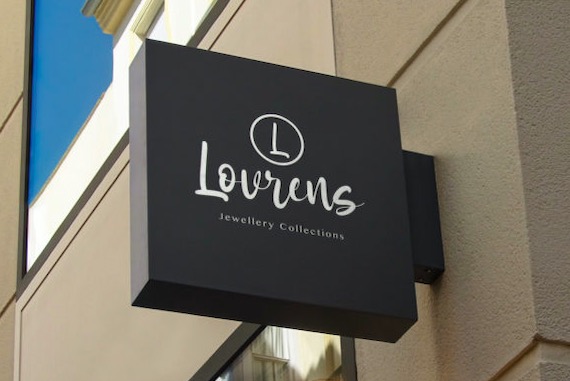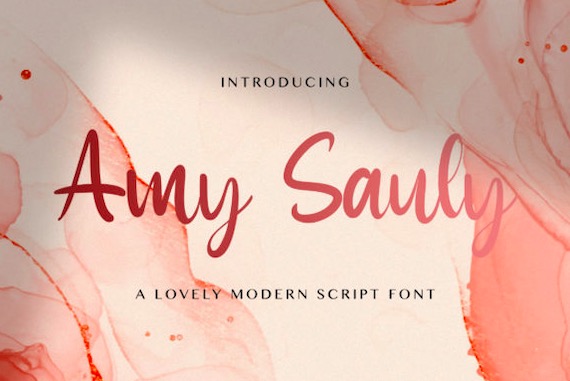
Amy Sauly Font
Amy Sauly is a flowing, classy, and delicate handwritten script font that was created and shared by StringLabs. This script font has well-balanced and cool characters and as a result, it matches a wide pool of designs. This font is PUA encoded which means you can access all of the glyphs and swashes with ease!
Amy Sauly Handwritten Script Font